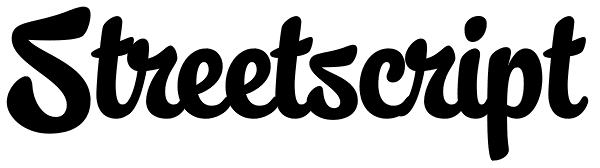
Streetscript
Streetscript is a contemporary upright(ish) script with a modern, streetwise edge. It contains a wealth of OpenType goodies and is equipped with enough language support to cover most Latin-based languages. Latin Extended A is fully covered (except...